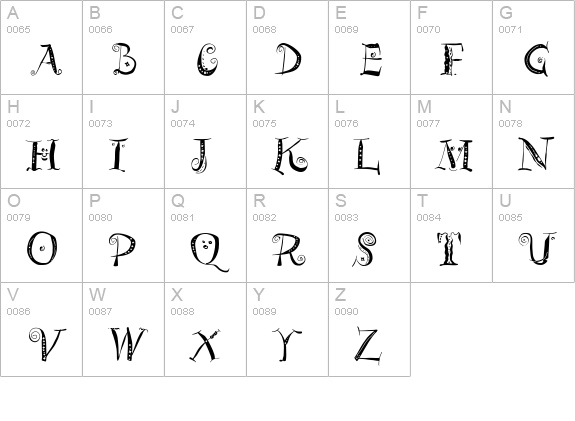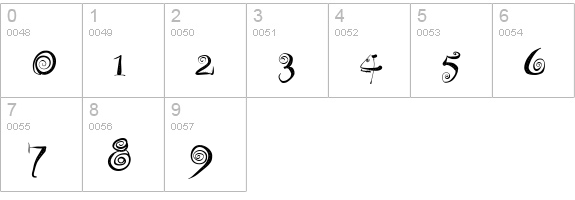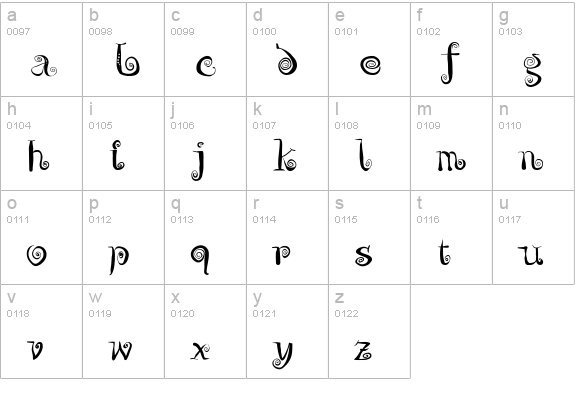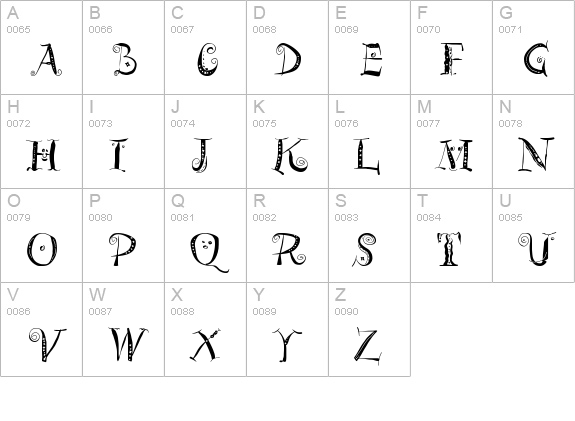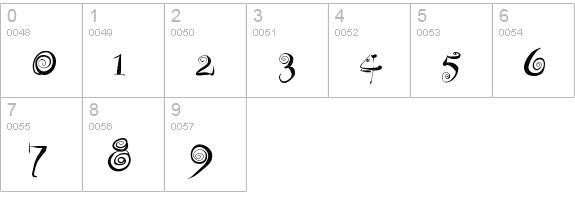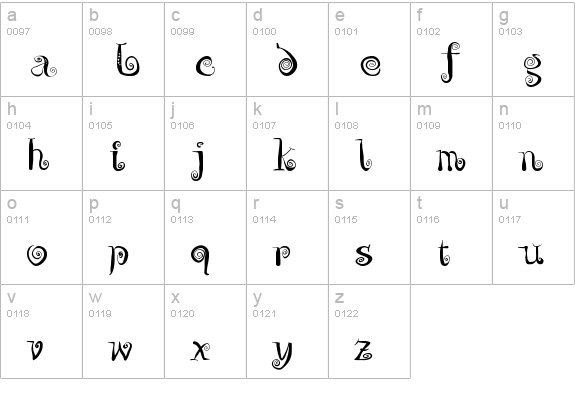
Introducing ZeitGeisterbahn font, a captivating typeface that seamlessly blends modern aesthetics with a touch of vintage charm. This versatile font exudes a sense of mystery and nostalgia, making it perfect for a wide range of design projects. With its elegant curves and unique character shapes, ZeitGeisterbahn font adds a sophisticated touch to any text or headline. What's even better is that ZeitGeisterbahn font is completely free to download at FontsMarket.com! Whether you're working on a branding project, website design, or any creative endeavor, this font is sure to make a lasting impression. Embrace the spirit of the times with ZeitGeisterbahn font and elevate your designs with its timeless appeal.